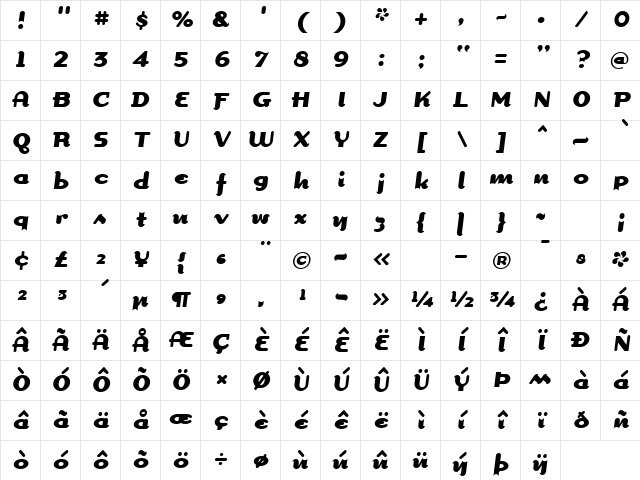
DogmaScriptBold Bold
Design Context for DogmaScriptBold
DogmaScriptBold flows with the natural rhythm of handwritten lettering, making it ideal for designs that call for warmth and personal expression. Its bold stroke weight gives it real presence on the page.
Font Pairing: Combine DogmaScriptBold with a simple geometric sans for maximum contrast - the tension between flowing curves and clean structure is a classic typographic pairing.
Pro Tip: Use DogmaScriptBold for short runs of text - names, titles, or taglines. Extended body copy in script faces tires the eye quickly.